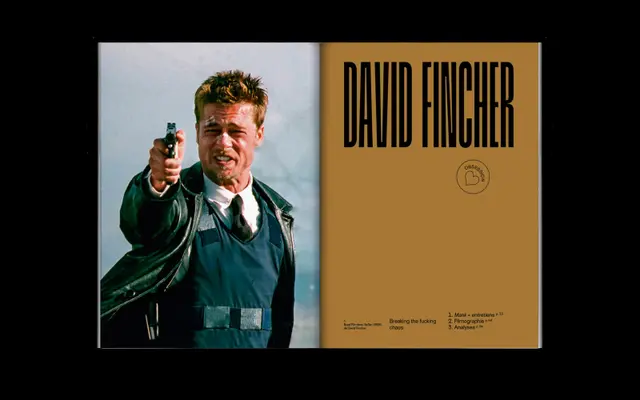
Grandmaster
A very condensed titling typeface by Lucas Descroix, drawn from 20th-century Antique Press sources and named in tribute to Grandmaster Flash.
Designed by French type designer Lucas Descroix, Grandmaster takes inspiration from 20th-century Antique Press fonts, using an extremely vertical structure and highly regular counter-shapes to create a near-kinetic quality on the page. Five weights from Thin to Black each come with matching italics, and the family is also available as a variable font spanning the full weight range. OpenType features include oldstyle numerals, discretionary ligatures, alternate lowercase a and g forms, and hairline punctuation.
Extremely condensed vertical structure with near-kinetic rhythm, inspired by 20th-century Antique Press fonts and designed primarily for titling and editorial use rather than continuous text.